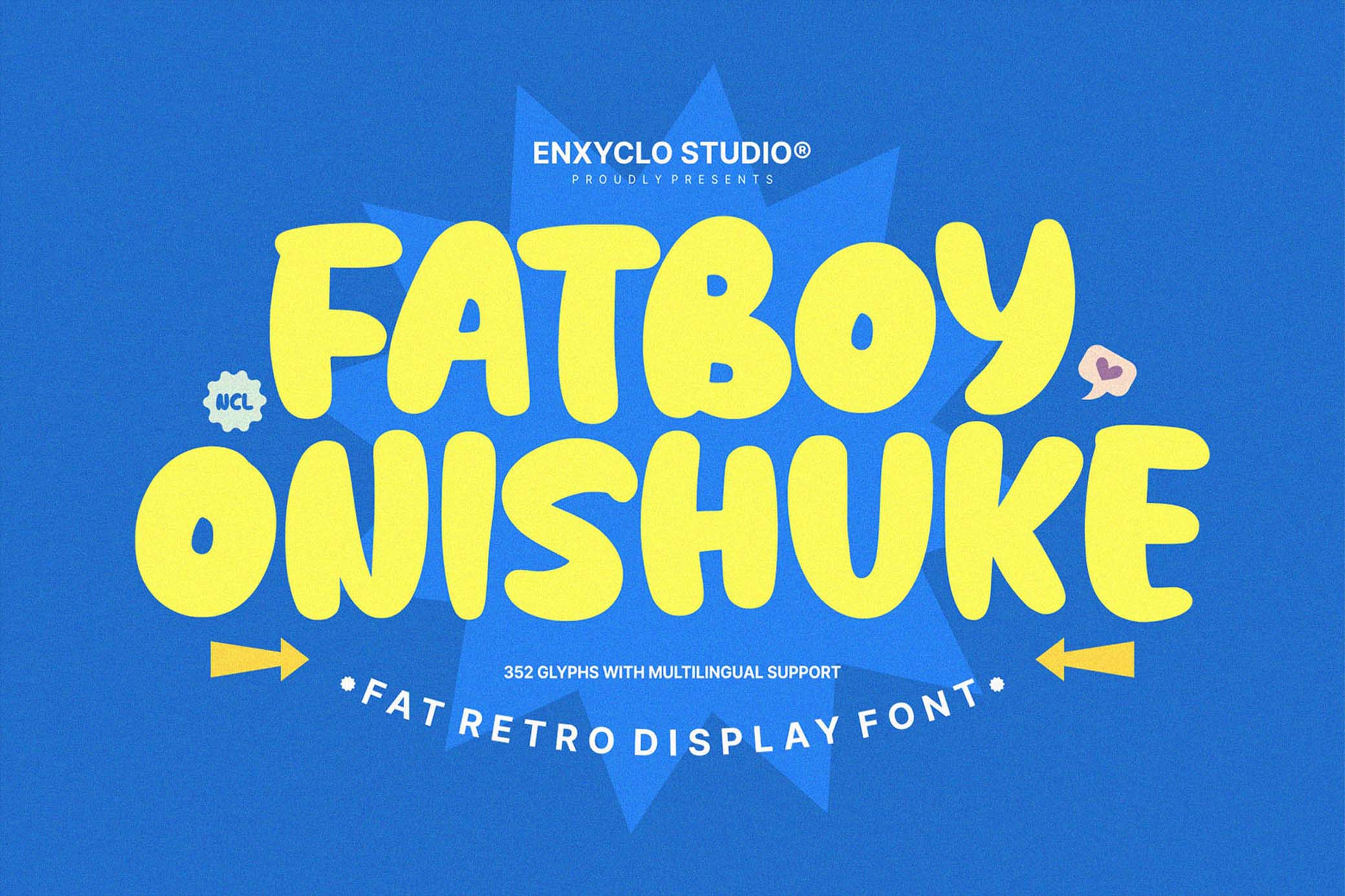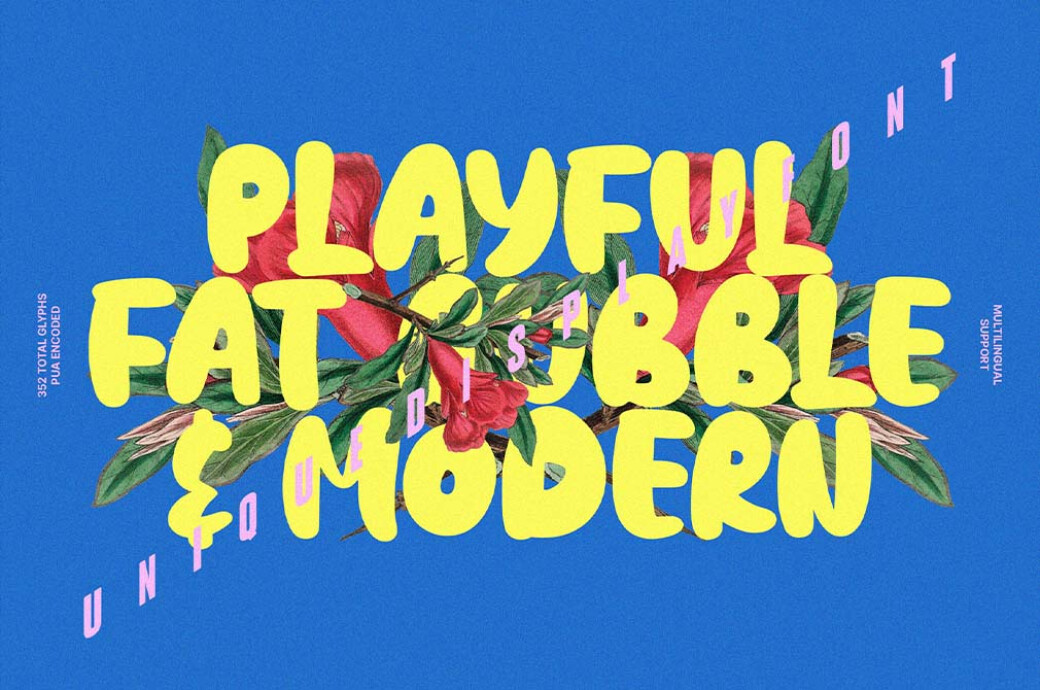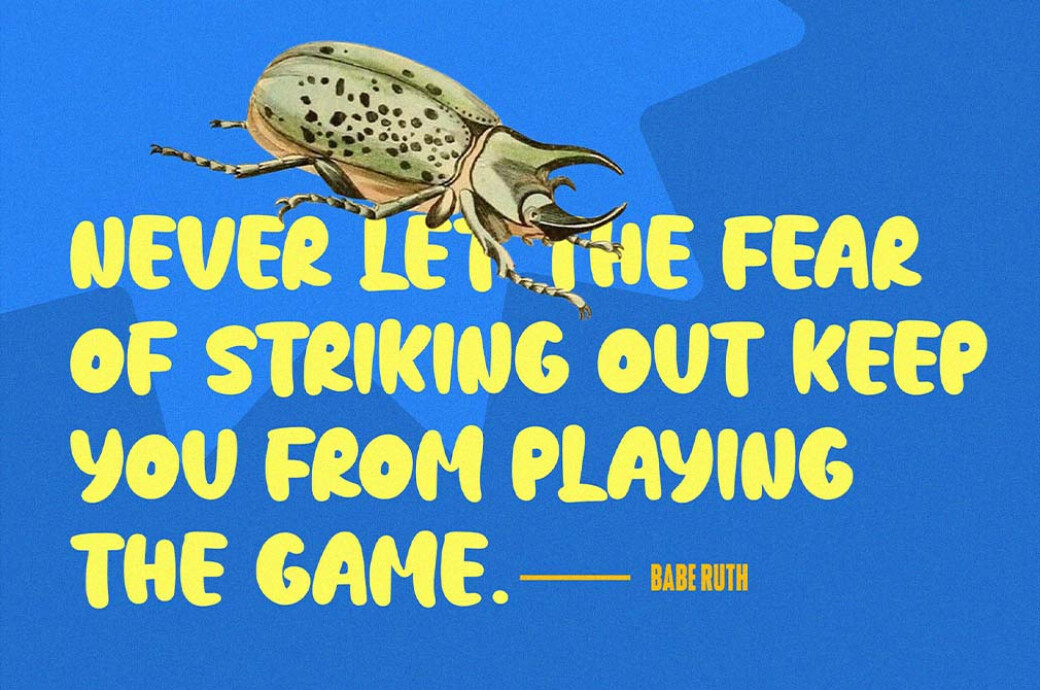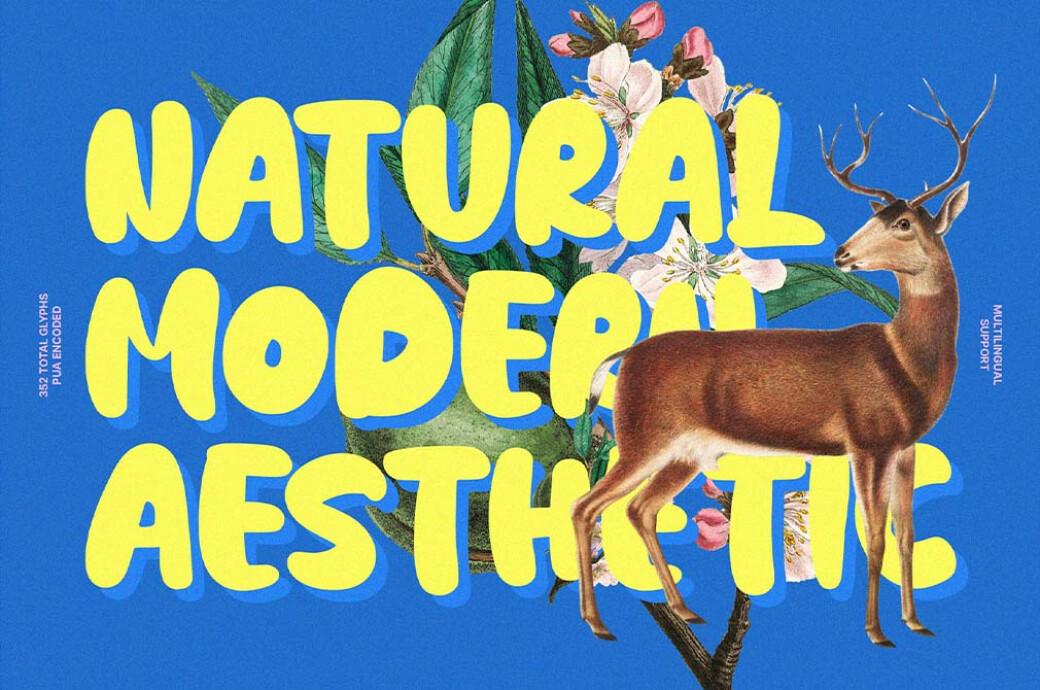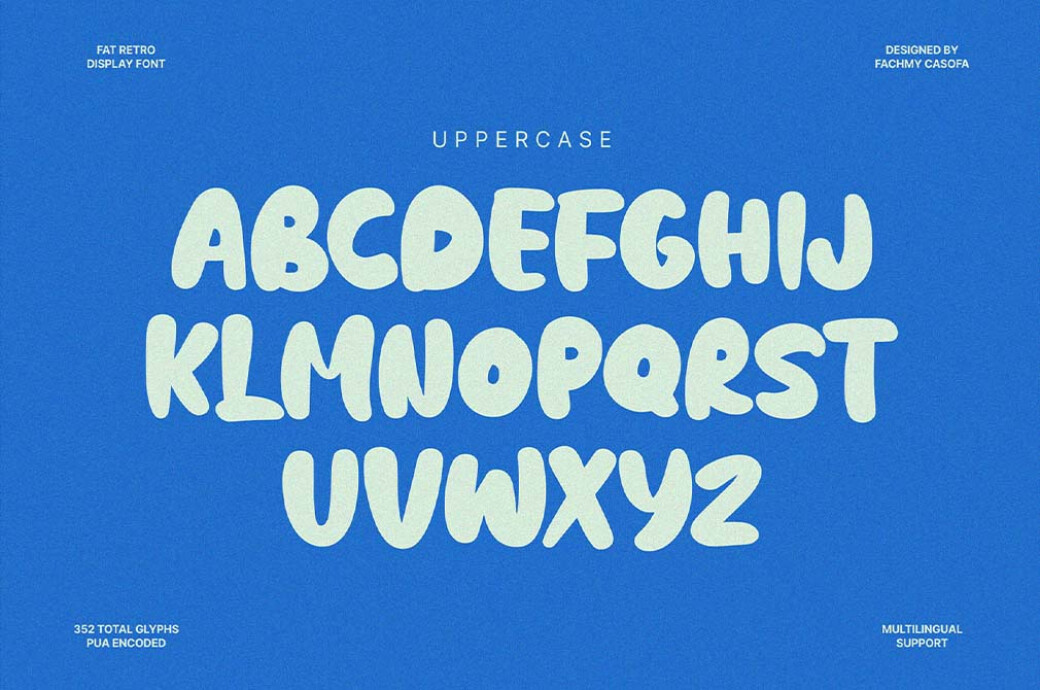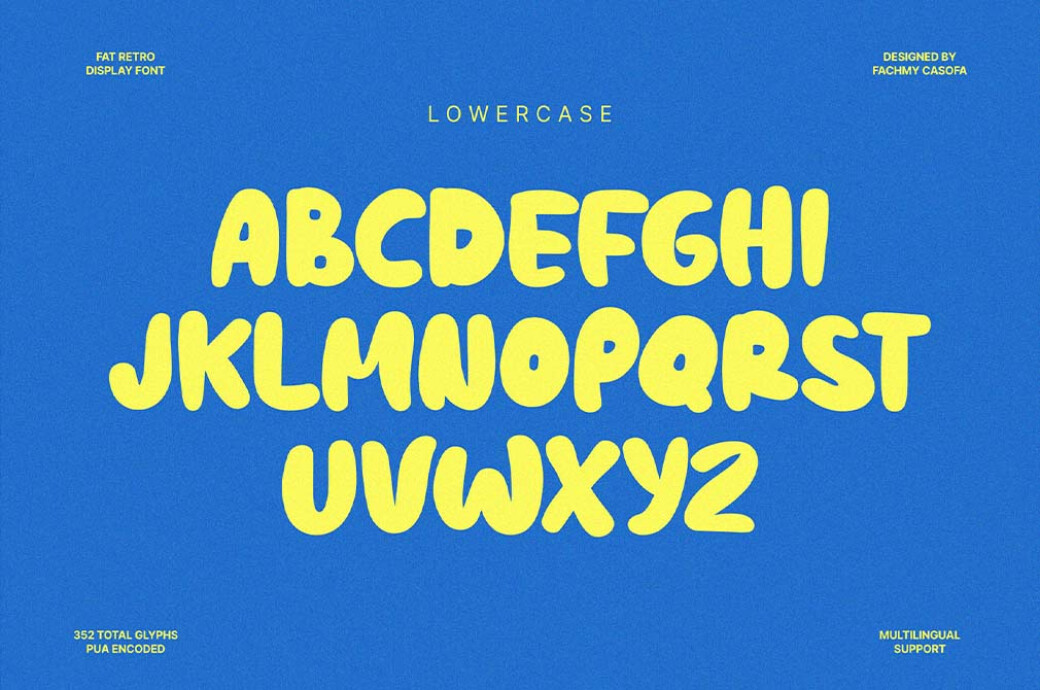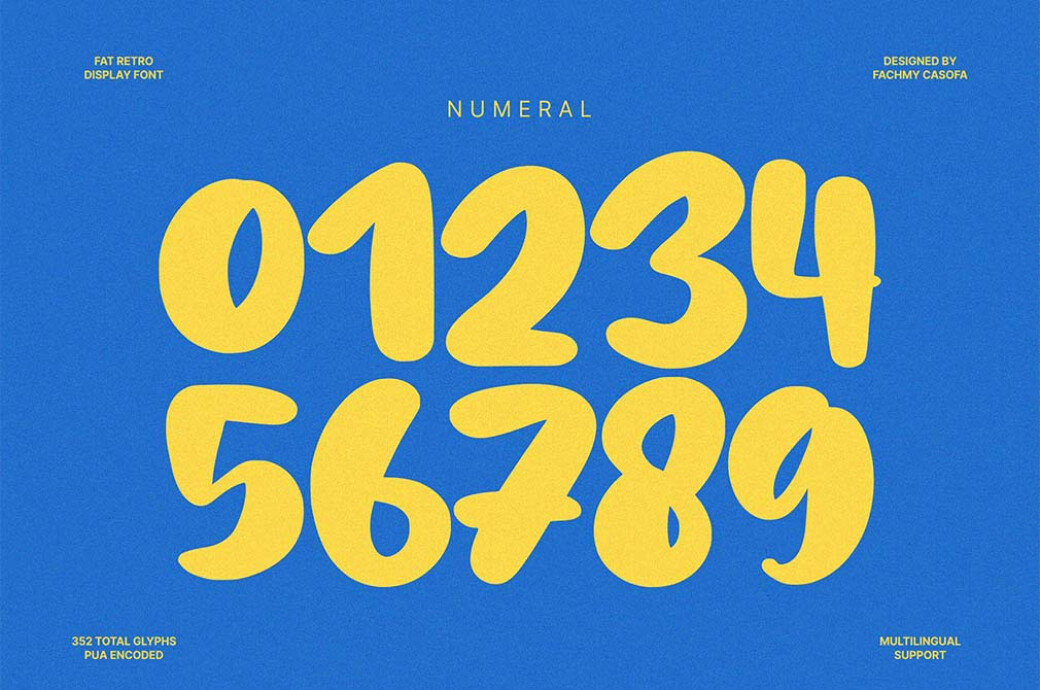
NCL Fatboy Onishuke — Fat Retro Font
This retro font provokes zero fat shaming and tons of shape admiration. It’s so irresistibly cute we just want to cuddle it and call it our precious cinnamon bun.
It’s like the big friendly giant of fonts, perfect for headlines, billboards, magazines, websites, posters, branding, and all kinds of big-size projects. But wait, this chubby champ isn’t just about size. It’s about funky style as well, bringing a hefty dose of retro charm to your creations. The font includes the standard set of uppercase, lowercase, numerals, punctuation, and symbols. As well as a bunch of ligatures to splash extra whimsy into your designs.